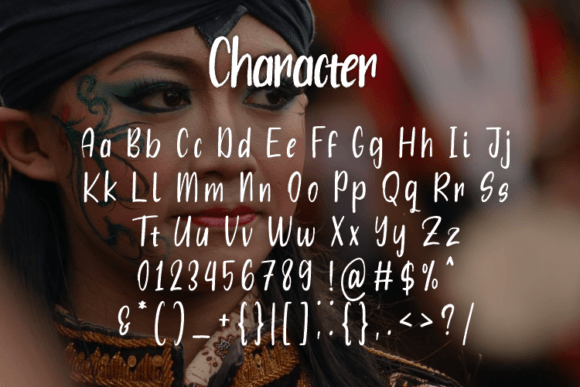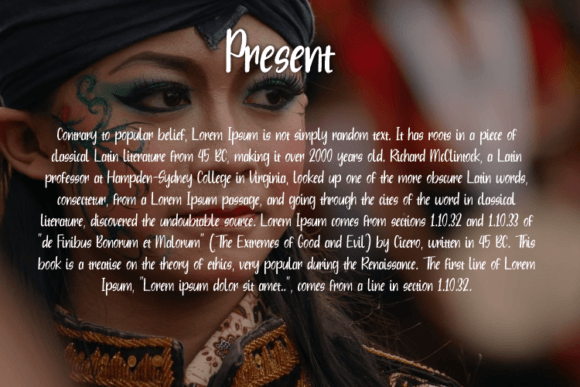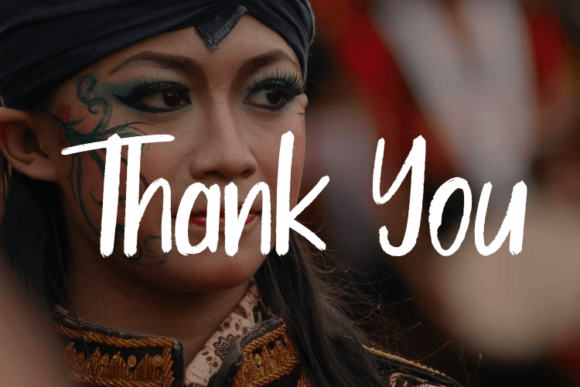
Introduction to Shuty Font
Remember the moment when you stumbled upon the perfect design element for your creative project? It’s that instant rush of excitement and satisfaction that comes from knowing you’ve found exactly what you needed. For designers, this feeling is all too familiar, and it’s exactly what we’re about to share with you – the exquisite Shuty Font.
This masterfully crafted handwritten font is not only a beautiful addition to any design, but it’s also a valuable resource for creative professionals. With its classy calligraphic influences and contemporary feel, Shuty Font is sure to elevate your projects to new heights. Whether you’re working on a high-end branding project or a simple blog post, this versatile font is the perfect choice for designers who demand the highest quality.
As a design resource, Shuty Font is a game-changer, offering a unique blend of elegance and modernity that’s hard to find elsewhere. Plus, with a transparent background, you can easily integrate it into your designs without any distractions. And the best part? It’s available for free download, making it an instant favorite among designers. Get ready to fall in love with Shuty Font and take your creative projects to new levels!
Key Features of Shuty Font
- High-quality, unique design resource ideal for creative projects
- Unique, modern design with a clear, legible font style suitable for a wide range of applications
- Perfect for designers seeking a distinctive, high-quality font for their creative project
Honest Review: Shuty Font
- High-quality typography: The Shuty Font boasts a sleek, modern design that’s perfect for any creative project.
- Transparent background: This feature allows for seamless integration with any background image or color.
- Extensive character set: The font includes a wide range of characters, including Latin, Cyrillic, and Greek scripts.
What works well: ✨ The Shuty Font is incredibly versatile and can be used for a variety of projects, from web design to print materials. Its modern aesthetic makes it a great choice for creative professionals looking to elevate their designs.
Limitations: ⚠️ While the Shuty Font is a high-quality design resource, it may not be suitable for projects that require a more traditional or classic look. Additionally, some users may find the font’s modern style too trendy or overused.
Overall impression: The Shuty Font is a solid choice for designers looking for a high-quality, free download. Its modern design and transparent background make it a great addition to any design resource library.
Shuty Font is a high-quality design resource ideal for creative projects requiring a unique, eye-catching touch. With its transparent background, this versatile font is perfect for adding an extra layer of style to your designs.
Using Shuty Font in Popular Design Applications
Tips for Getting the Most Out of Shuty Font
To get the most out of the Shuty Font, experiment with different font sizes, colors, and combinations to find the perfect look for your design project.
Use the Shuty Font in a variety of creative projects, such as:
Alternatives to Shuty Font
Montserrat is a popular design resource known for its clean, modern aesthetic and high-quality typography. It features a transparent background and is suitable for a wide range of creative projects. Montserrat is ideal for use in headings and titles, and its versatility makes it a great alternative to Shuty Font for designers who want a more refined look.
Compared to Shuty Font, Montserrat has a more sophisticated feel and is better suited for high-end designs. While Shuty Font is more playful and informal, Montserrat exudes a sense of professionalism and elegance.